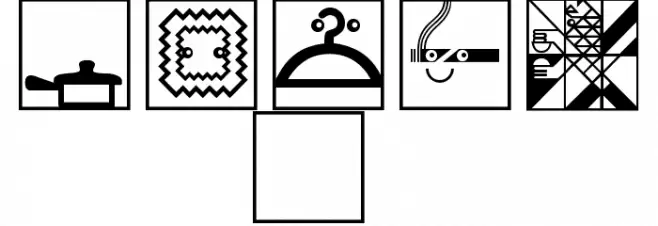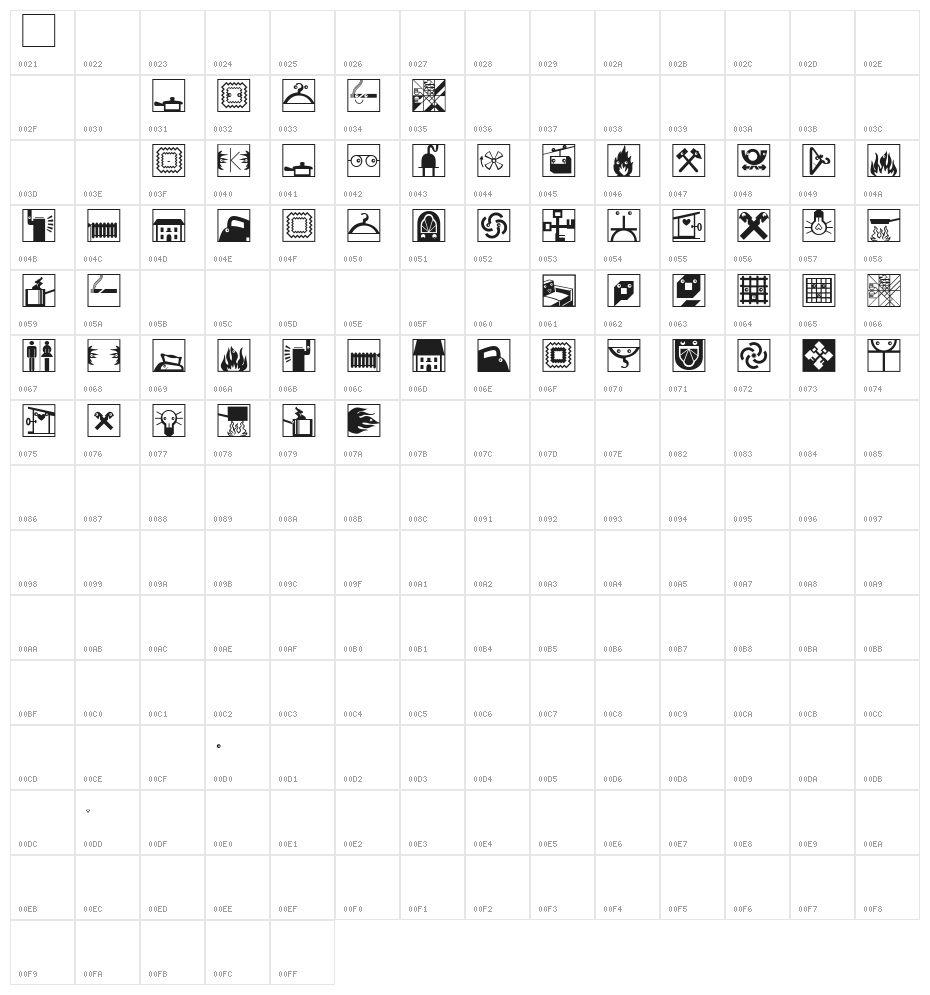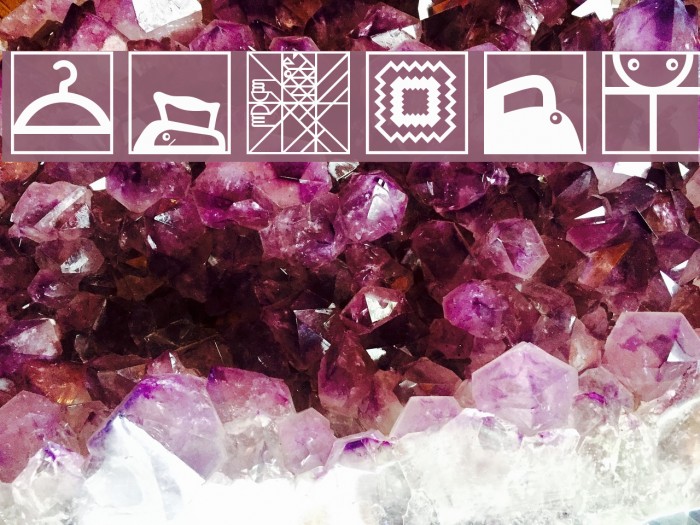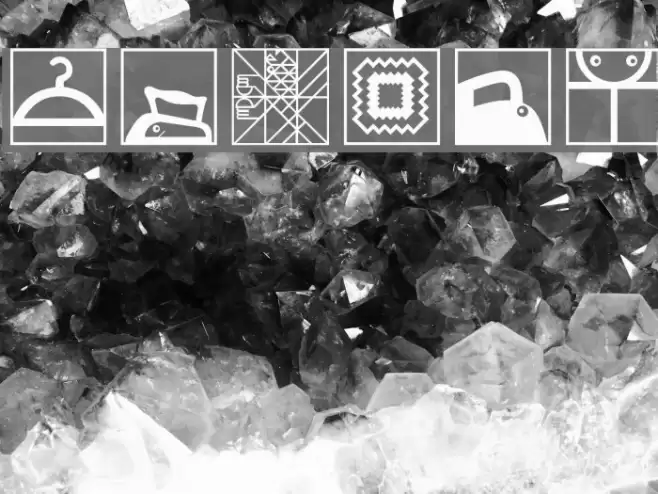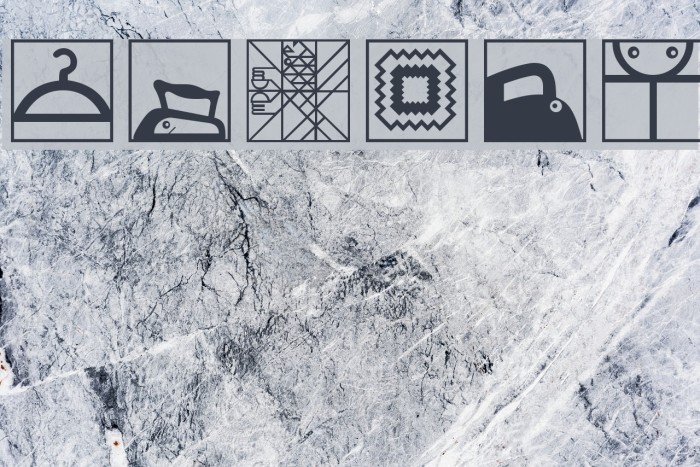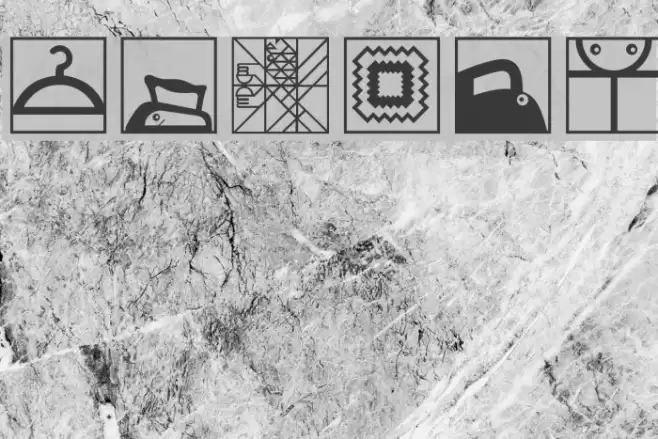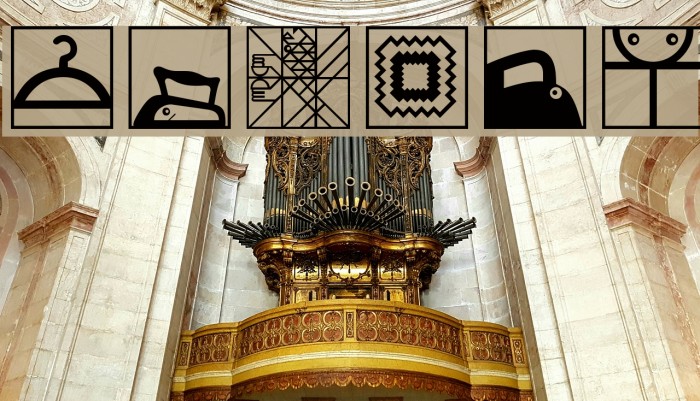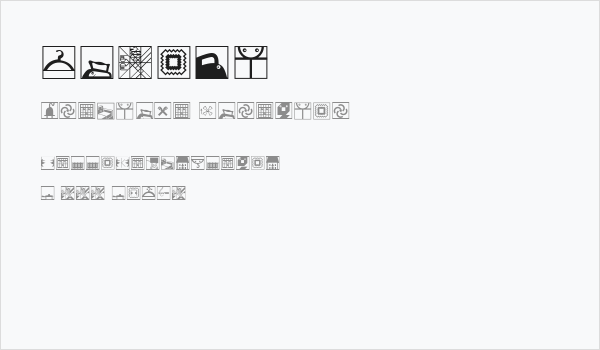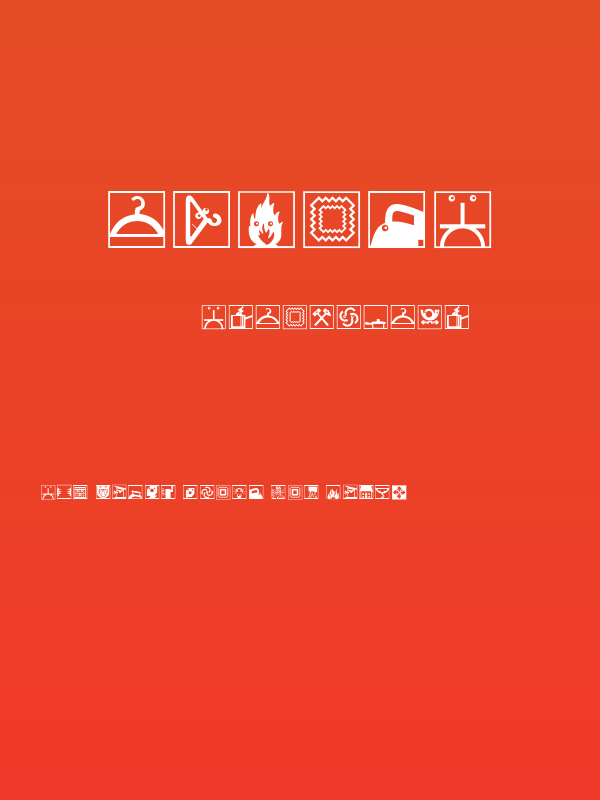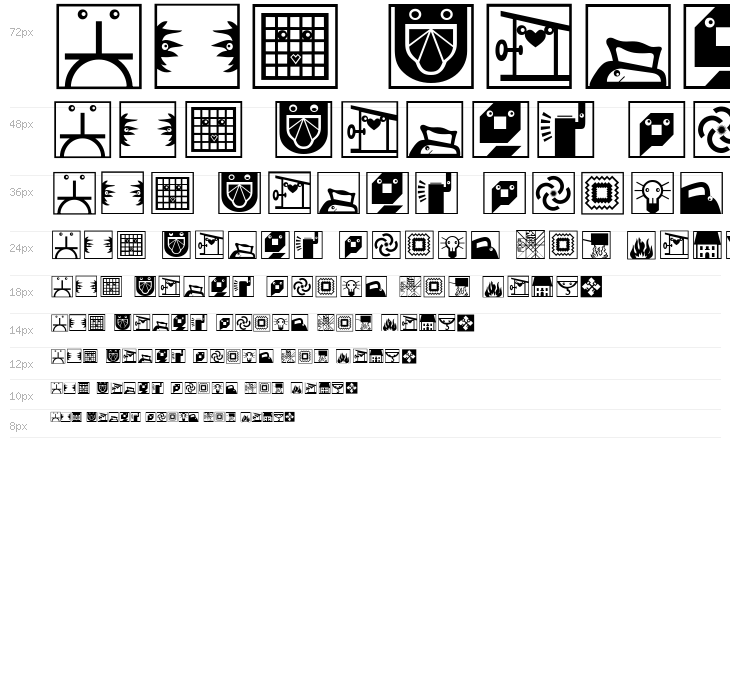
Pifont Font
Pifont Description
A collection of pictogram-style glyphs, each enclosed in a square, featuring various symbols such as tools, household items, fire, and abstract designs. The icons are bold, geometric, and highly legible, with consistent line thickness and minimal detail.
| Overall Style | Modern, Technical, Utilitarian |
| Use Case | Icons, Signage, Infographics, Labels |
| Proposed Projects | Instruction manuals, signage, infographics, technical documentation, educational materials. |